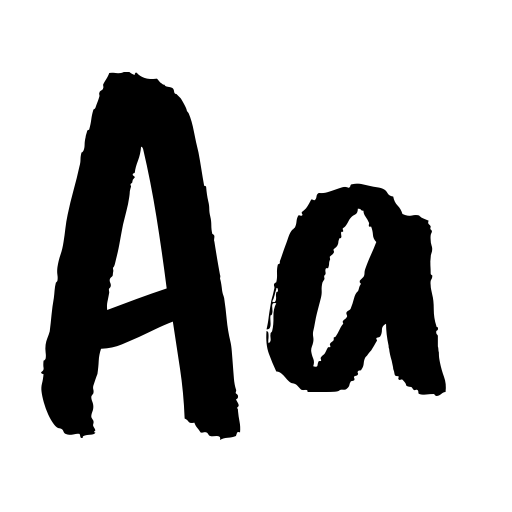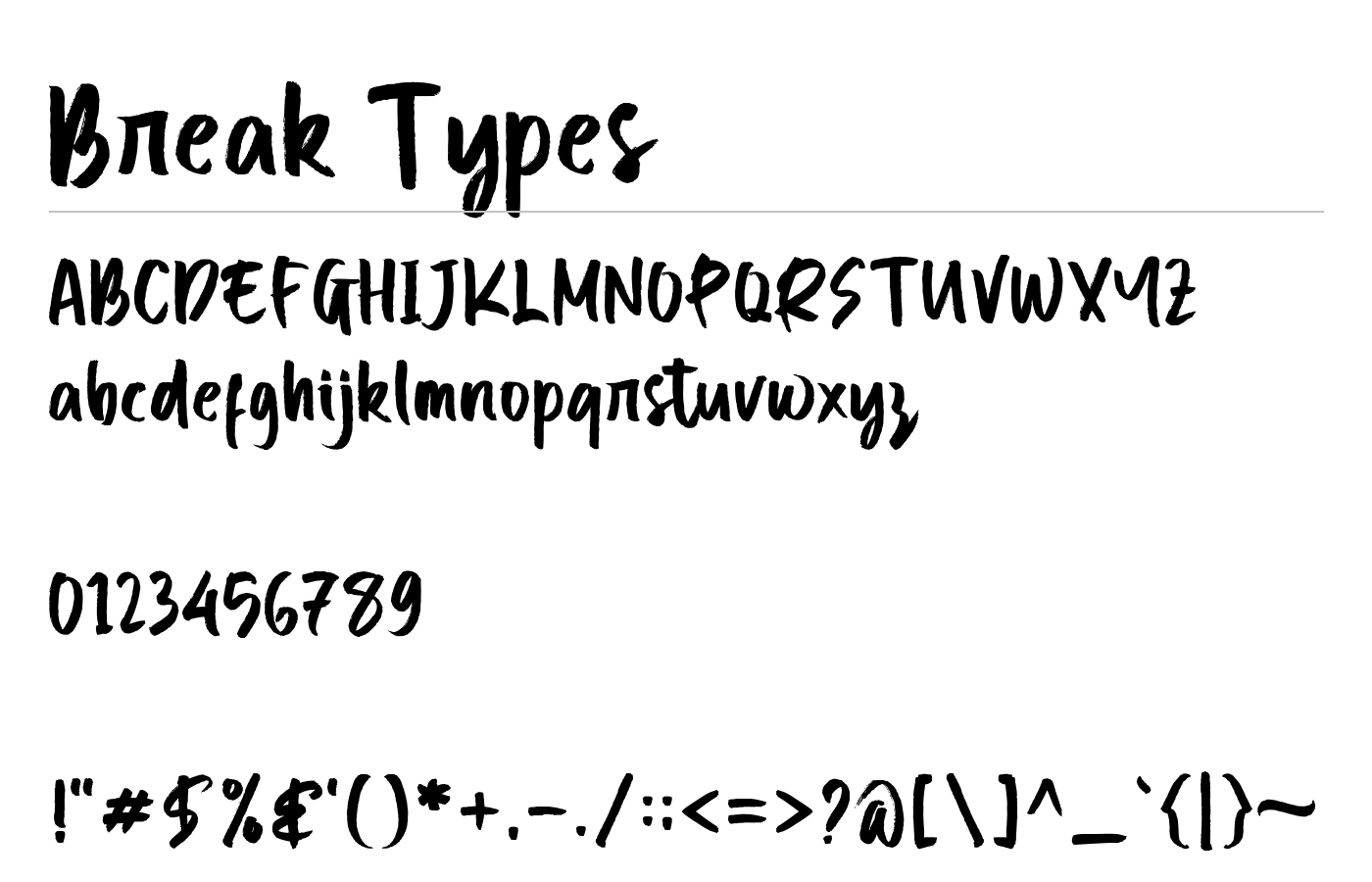
Break Types is a bold, hand-drawn script font with a casual and energetic feel, featuring irregular strokes that mimic brush lettering. Its lively, slightly rough texture adds personality and warmth, making it ideal for creative projects, fun branding, posters, and headlines that seek a genuine, handcrafted touch. This font works well where a friendly, approachable vibe is desired, standing out with its unique, artistic style.
Break Types Font
About Break Types Font